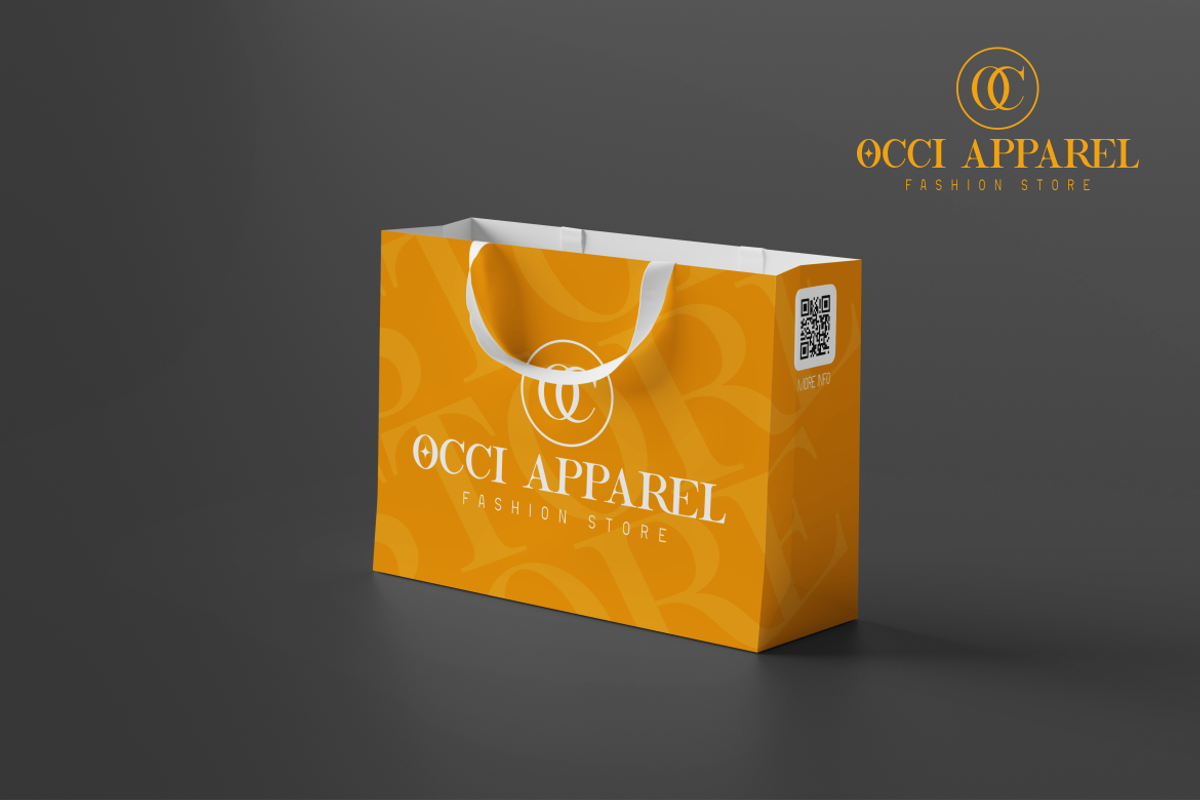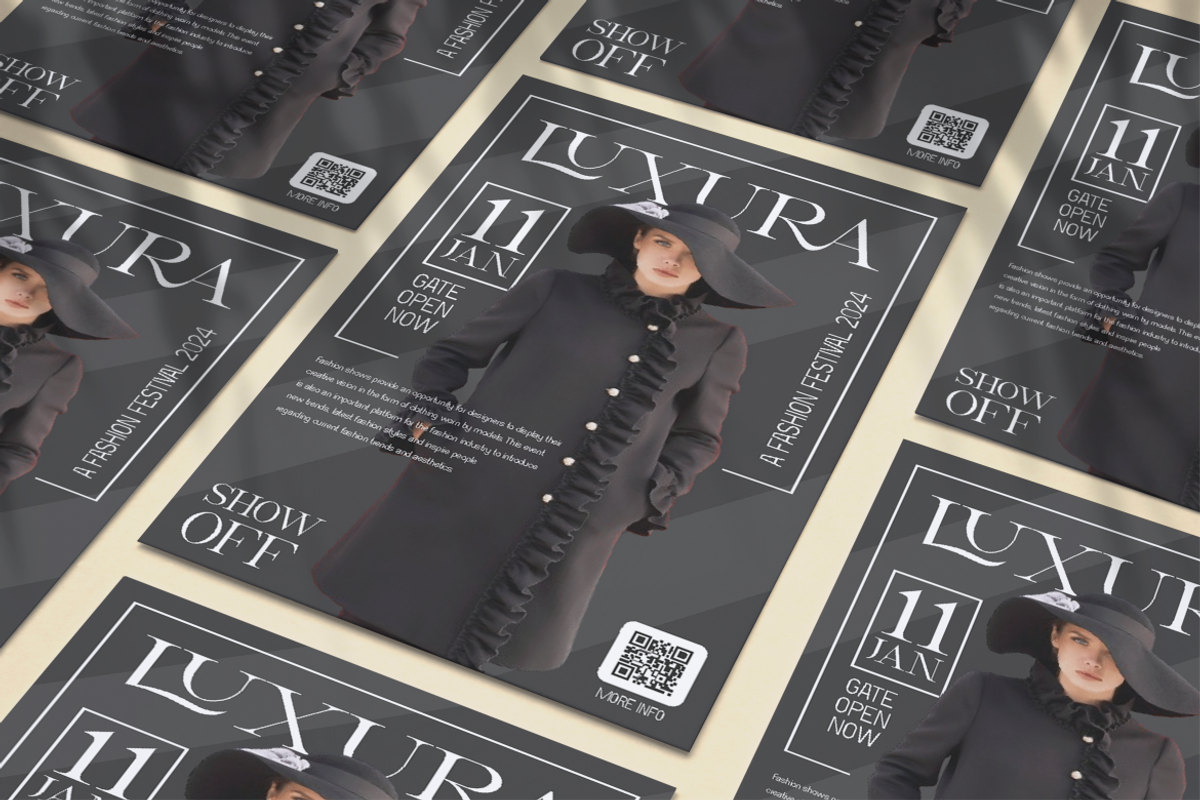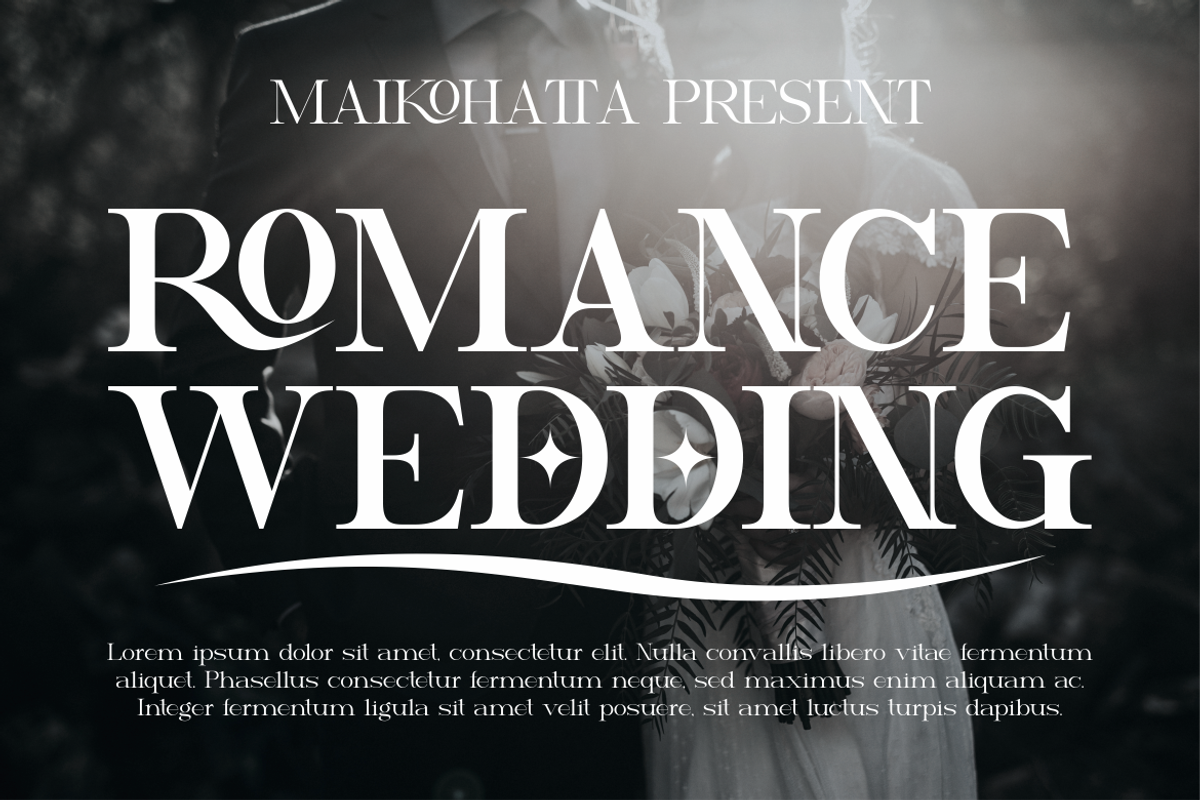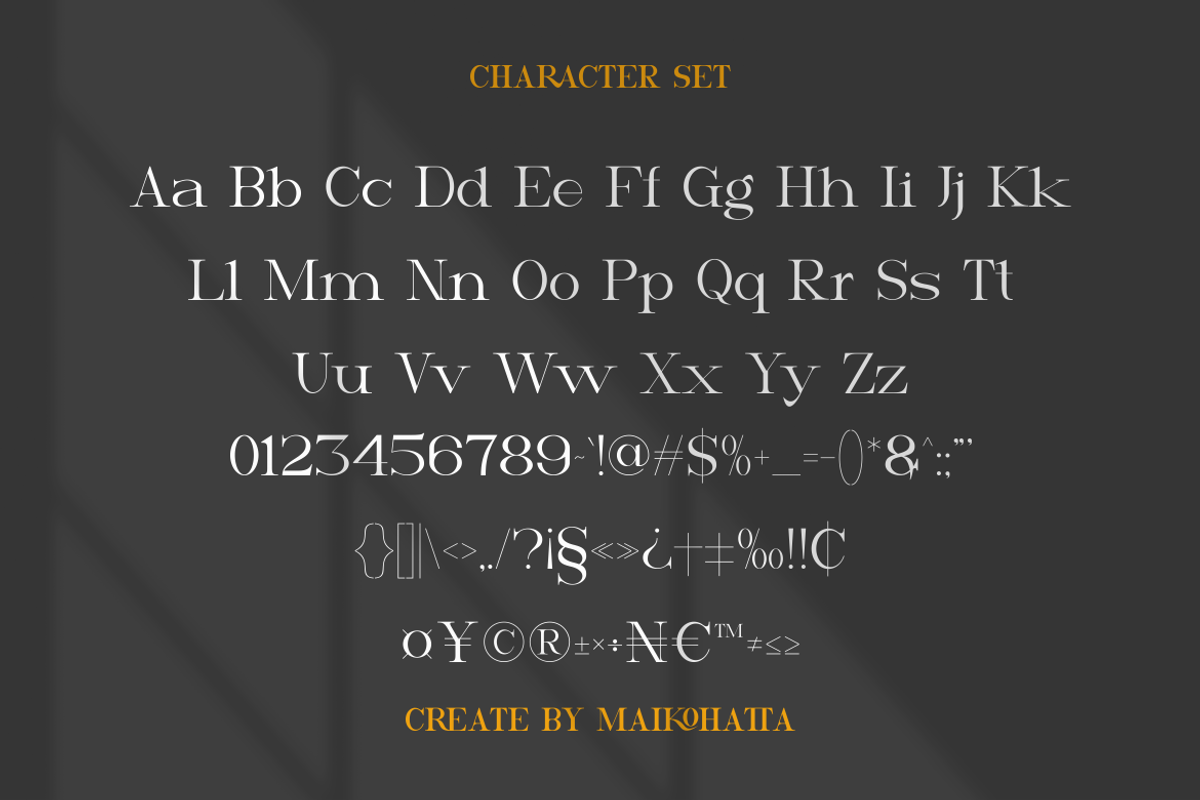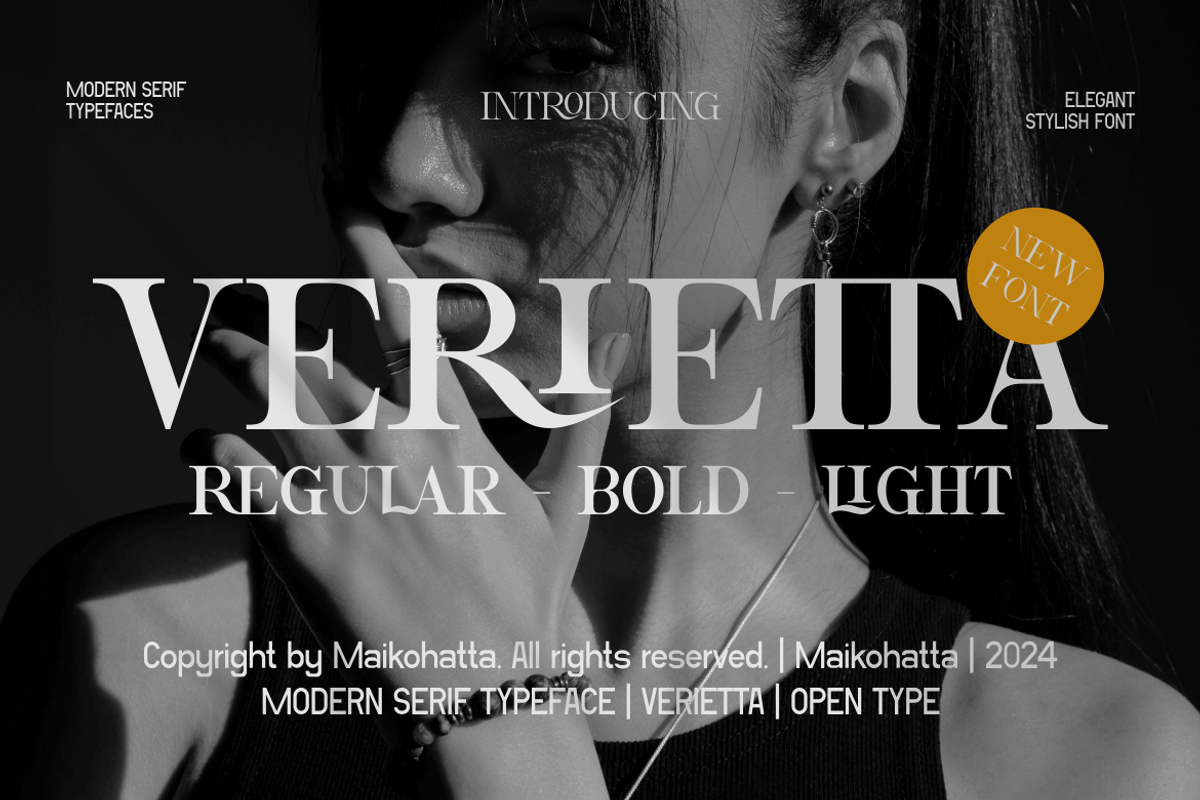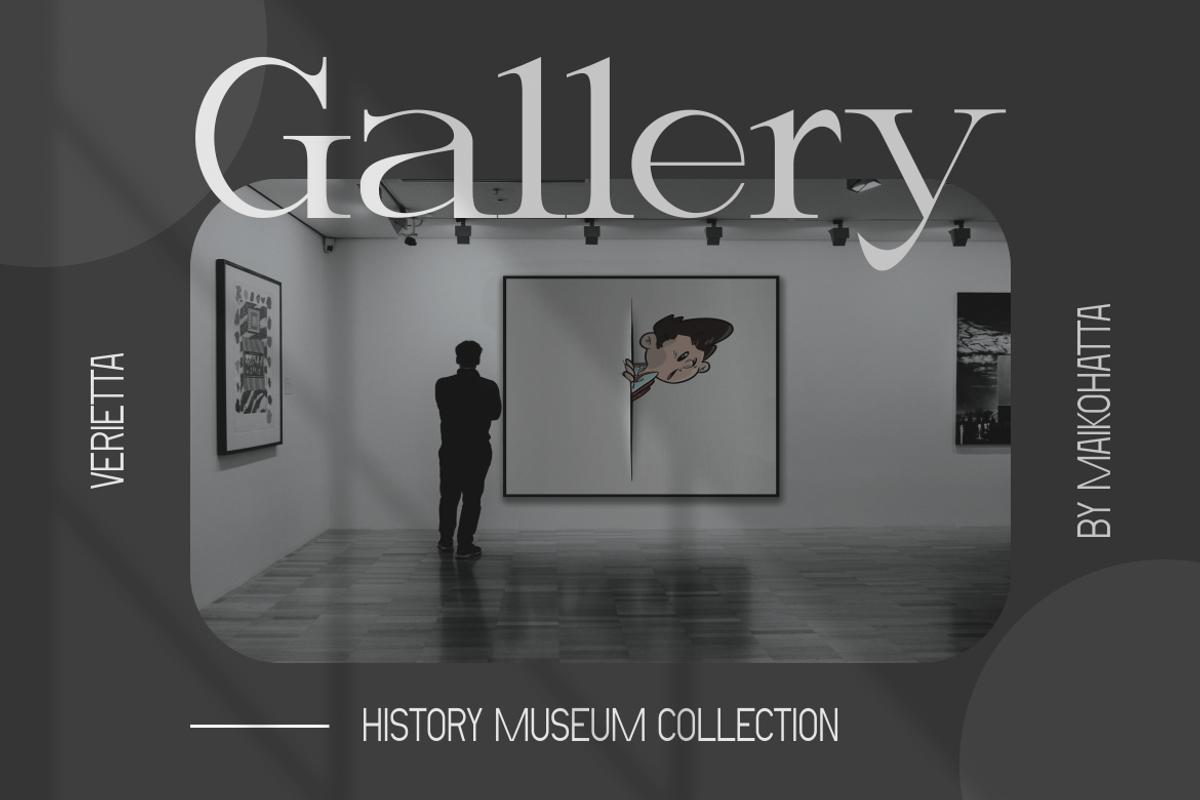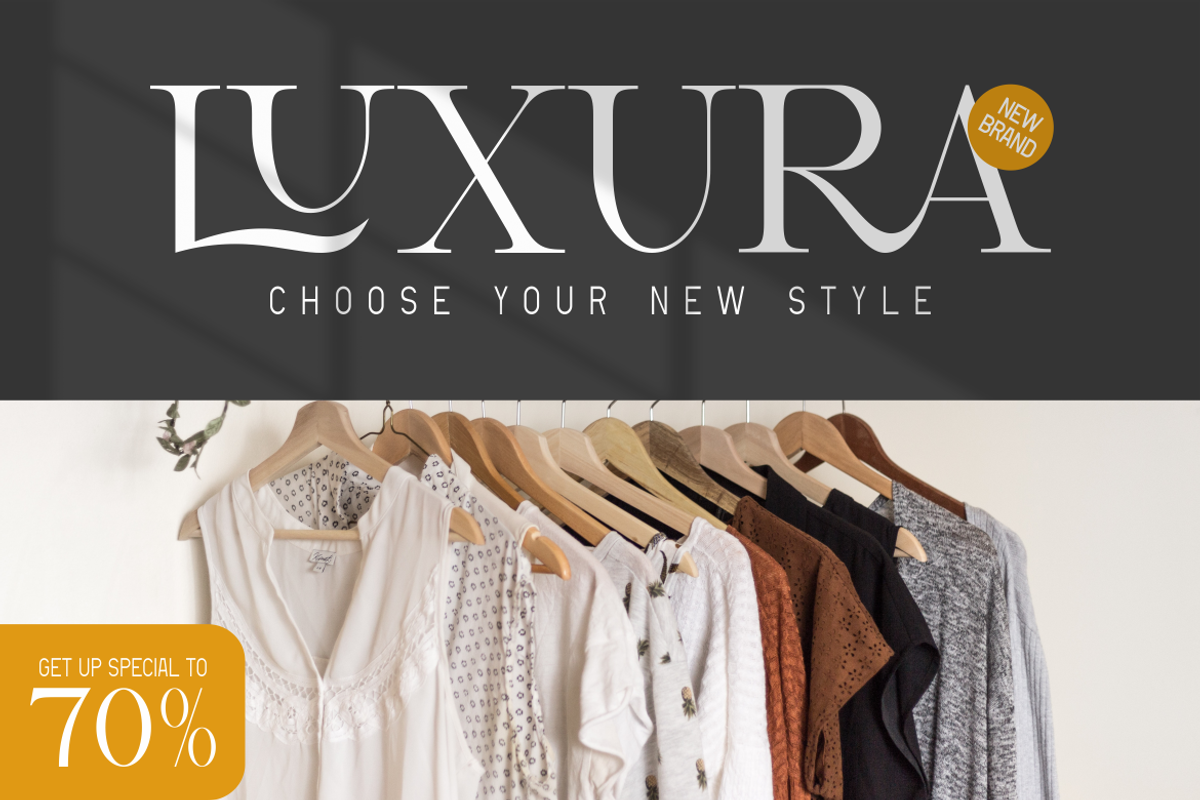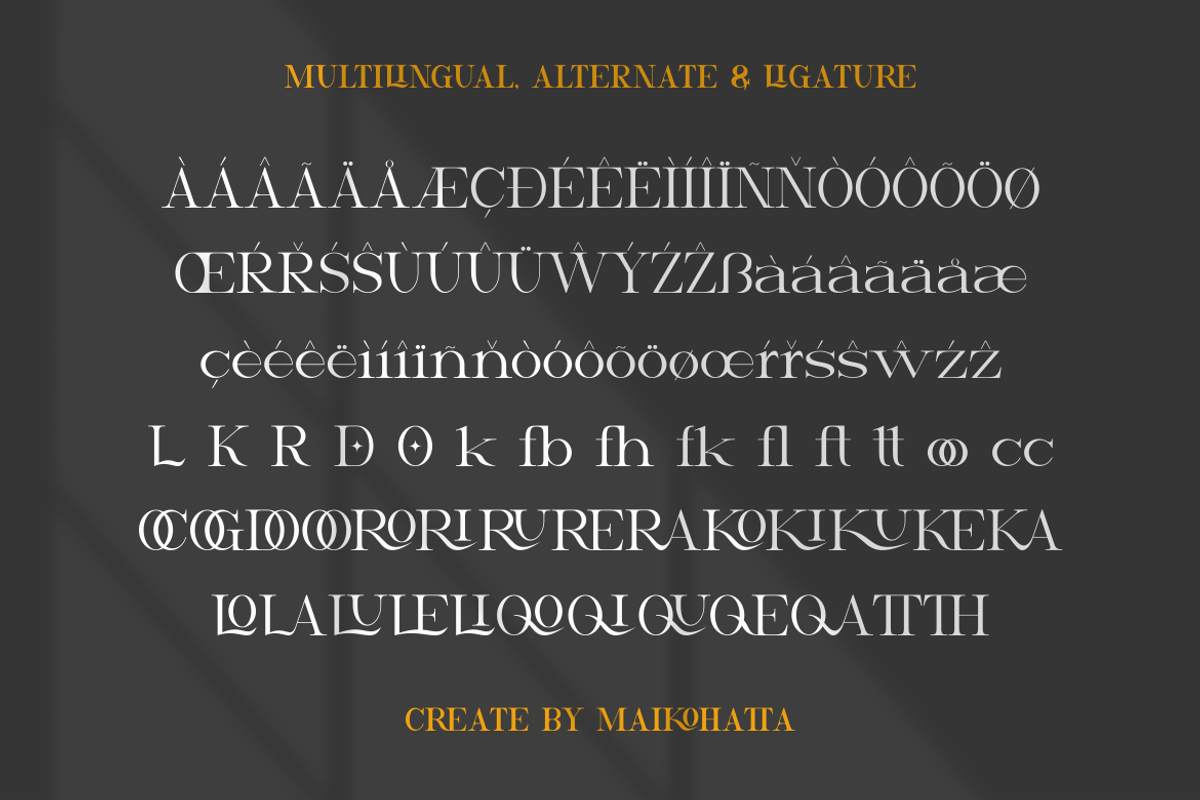
Verietta - Modern Serif Typeface
Introducing our new product Verietta Modern Serif Typeface
This font is a typographic masterpiece that harmonizes elegance and sharpness. Every letter within this font is meticulously designed, with a keen focus on balanced proportions and impeccable alignment. This font is well-suited for a variety of contexts, such as print design, promotional materials, or magazine layouts.